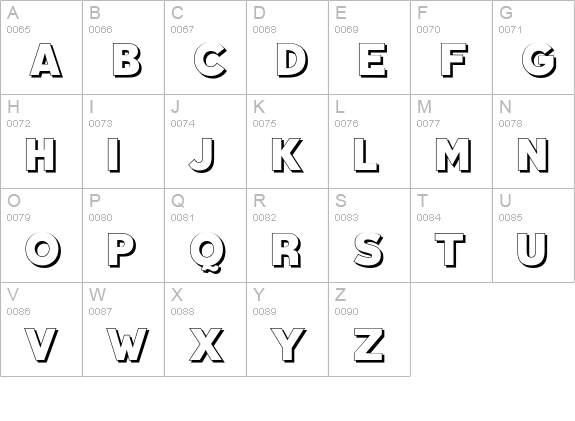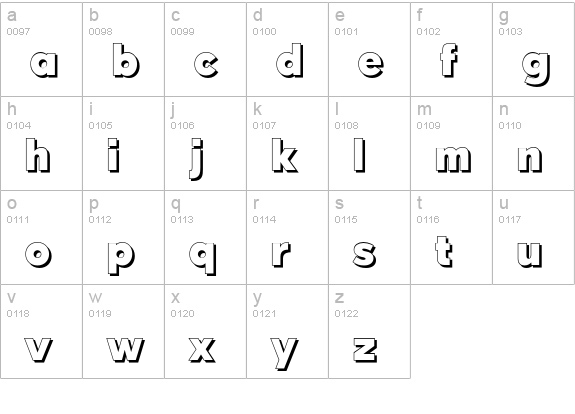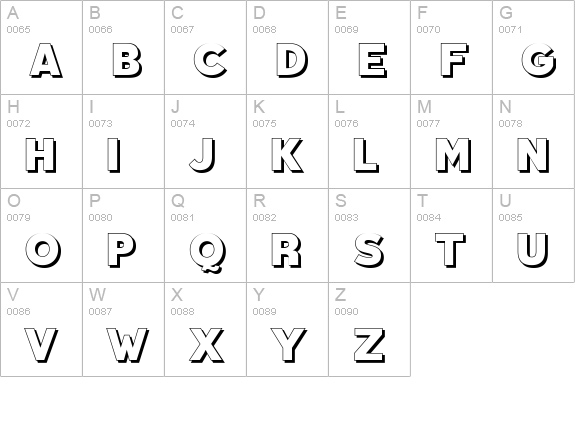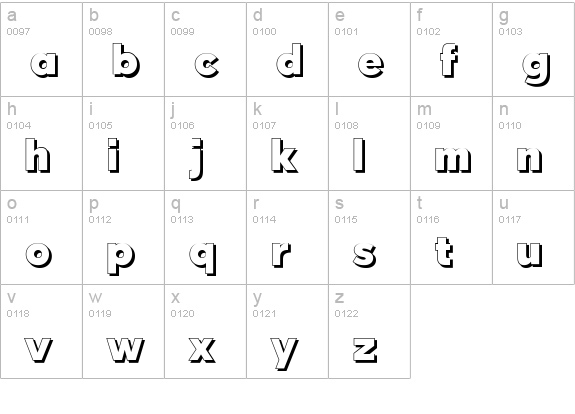
Introducing Qebab Shadow FFP font, a brilliant addition to your typography collection that is sure to make a lasting impression. This stunning font combines the timeless elegance of shadowed letterforms with a touch of modern sophistication, creating a unique visual experience that captivates the eye. Qebab Shadow FFP font is not only aesthetically pleasing, but it also offers a wide range of versatility, making it suitable for various design projects. Whether you're designing a logo, poster, website, or any other creative endeavor, this font is sure to elevate your work to new heights. One of the most remarkable features of Qebab Shadow FFP font is its availability as a free download. Yes, you read that right - this exceptional font is freely accessible at FontsMarket.com, allowing you to effortlessly obtain it and incorporate it into your designs without any restrictions. With its intricate detailing and carefully crafted shadows, Qebab Shadow FFP font adds depth and dimension to your text, creating a captivating visual impact. Its legibility remains intact, ensuring that your message is communicated effectively while still maintaining an air of creativity and style. Whether you're a professional designer or an enthusiastic amateur, Qebab Shadow FFP font is the ideal choice to enhance your creative endeavors. Download it for free at FontsMarket.com today and unlock a world of design possibilities that will leave a lasting impression on your audience.